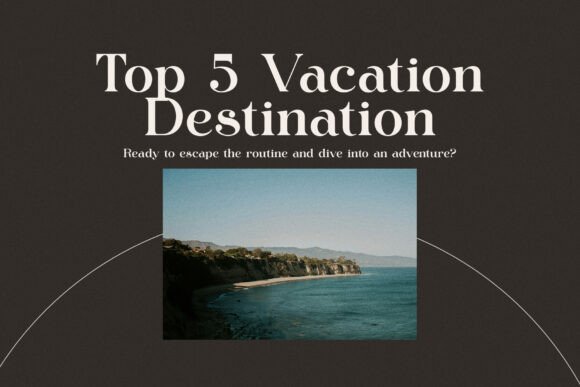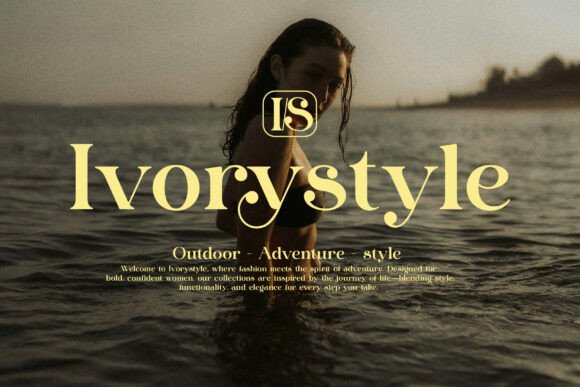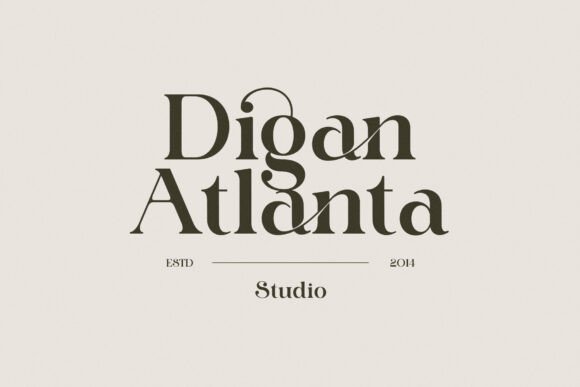
Introduction to Ranig Font
Introducing Ranig, a sophisticated font designed to elevate your design projects with its unique, modern charm.
With its elegant serif structure and beautifully crafted ligatures, Ranig seamlessly blends tradition with contemporary style, offering a fresh and refined aesthetic This font is perfect for a wide range of creative applications, making it an ideal choice for branding, logos, magazines, websites, advertisements, product packaging, and more.
Key Features of Ranig Font
Why Choose Ranig Font?
Ranig Font offers exceptional quality and versatility, making it a valuable addition to your design toolkit. Whether you’re creating for personal projects or commercial use, Ranig Font delivers professional results.